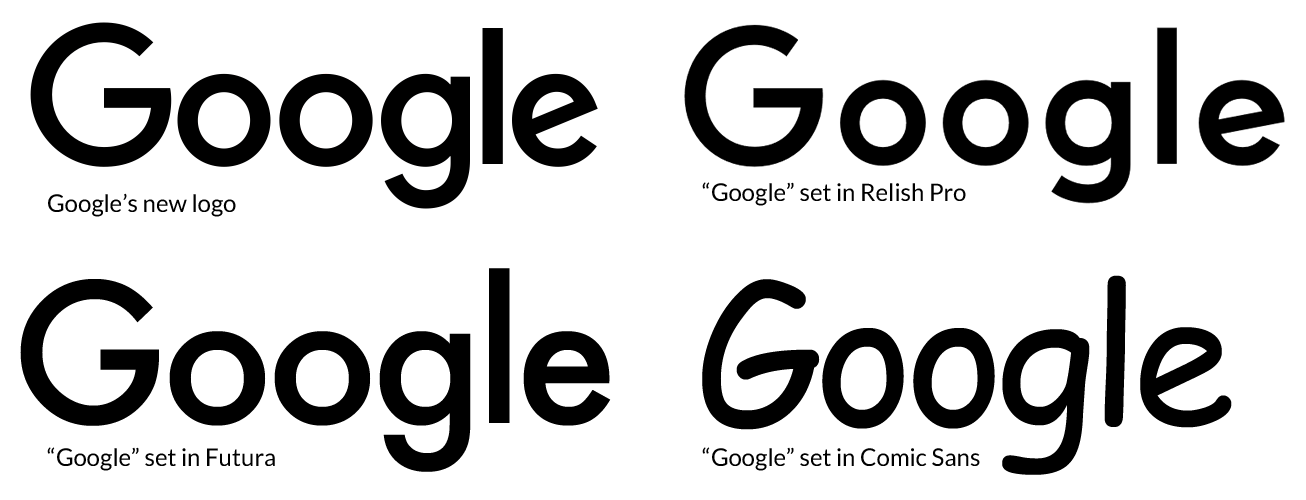
futura pt google font
Kula is a serif font family that combines both fun and tradition. This is a sans serif face based on geometrical shapes representative of the aesthetics of the bauhaus school of the 1920s 30s. You can use this font for commercial purpose for free.
Futura pt google font. A personal favorite of ours futura is a flexible sans serif font that is great in just about every situation. No entanto apesar de terem sido posteriormente construídos alguns outros troços nas décadas de 1960 e 1970 só no final da década de 1980 foi iniciada a. The font is used by websites such as freelancer grammarly alexa starbucks buffer and more. Portugal foi um dos primeiros países do mundo a ter uma autoestrada inaugurada em 1944 ligando lisboa ao estádio nacional a futura autoestrada lisboa cascais atual a5.
Bebas kai is free font. Futura was designed for bauer company in 1927 by paul renner. Moreover you can embed it to your website with font face support. The font is very simple and used widely in many blogs.
The em ex ch rem units. Issued by the bauer foundry in a wide range of weights and widths futura became a very popular choice for text and display setting. Silverleaf handwritten serif. Silverleaf is a unique font.